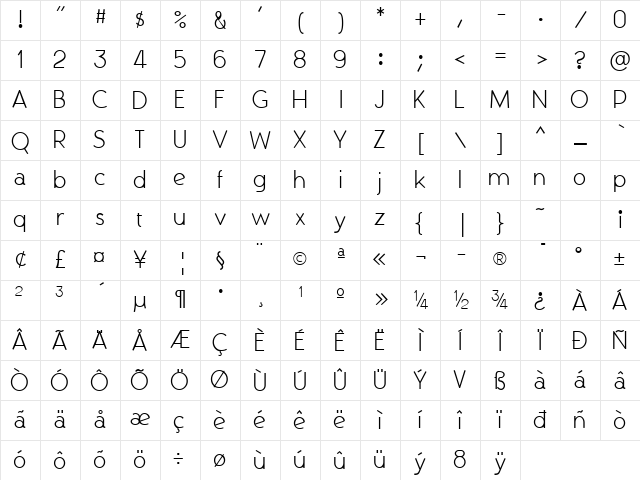
Complete AndrewAndreas Plain glyph index. Displaying only characters natively supported by AndrewAndreas Plain font.
AndrewAndreas is a composed and adaptable typeface that performs quietly and consistently across a wide range of design contexts.